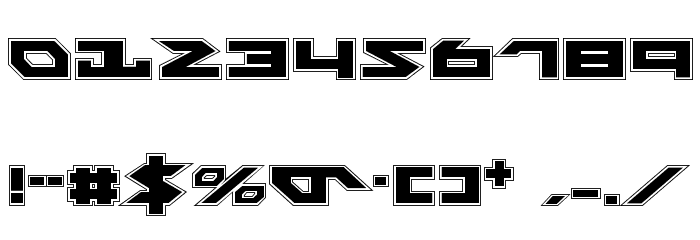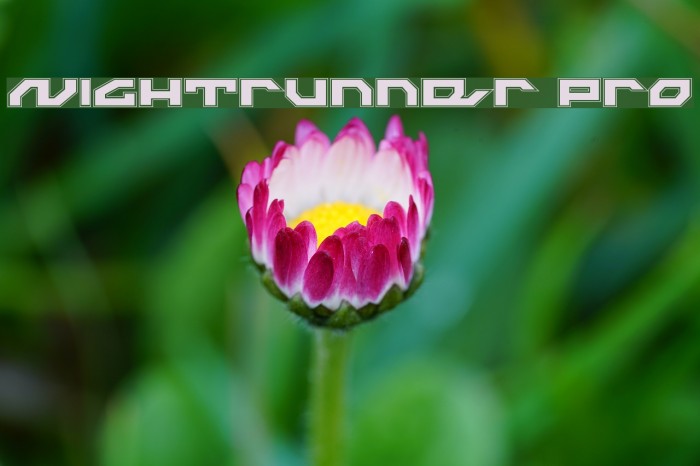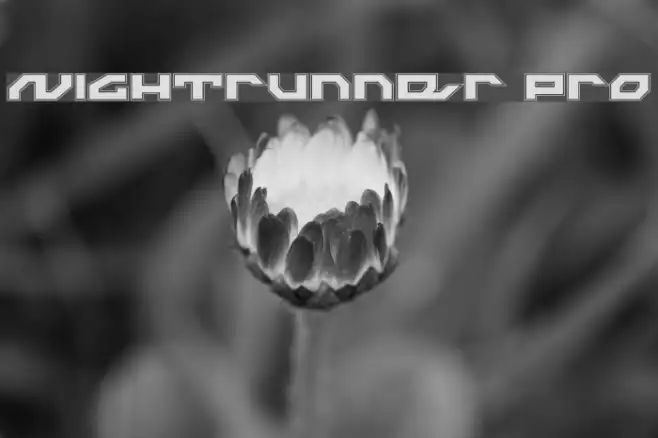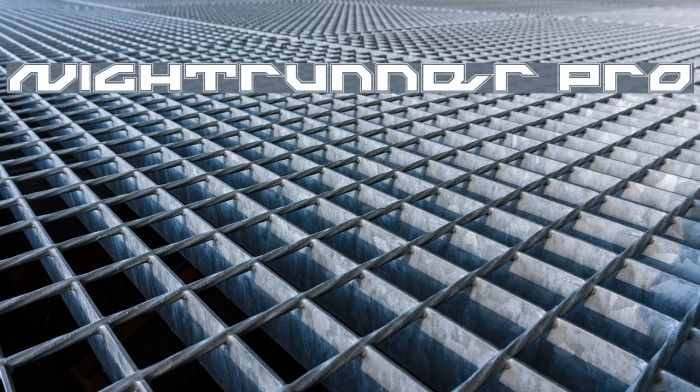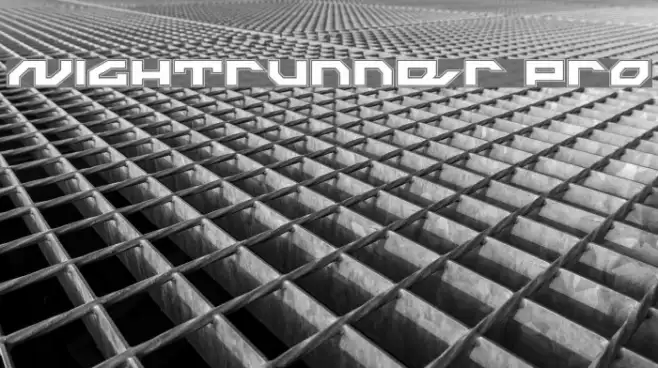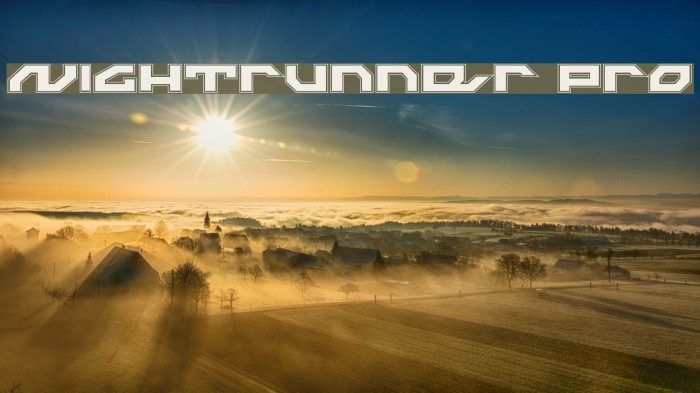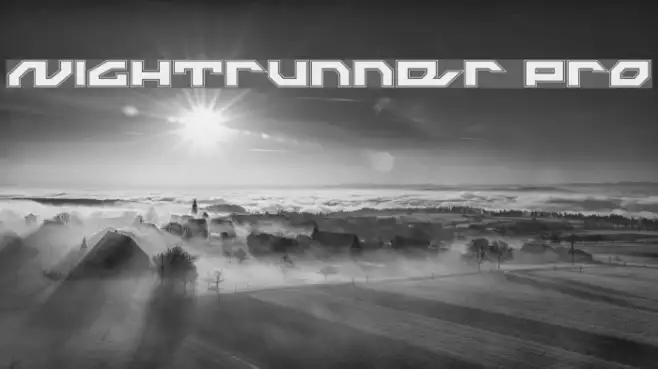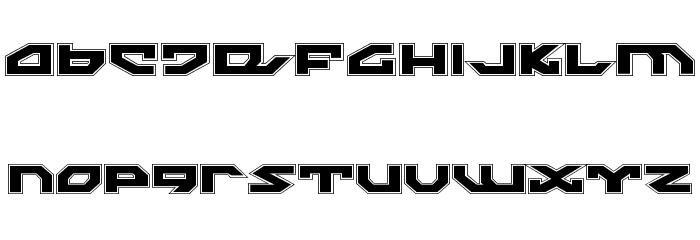
Nightrunner Pro Font
Nightrunner Pro Description
This font features a futuristic and angular design, characterized by sharp edges and geometric shapes. The uppercase and lowercase letters maintain a consistent style, with bold lines and a dynamic, forward-leaning posture. The numerals and special characters are designed to match the overall aesthetic, providing a cohesive look. The font's unique style makes it stand out, with a strong emphasis on symmetry and balance. Its bold appearance is suitable for projects that require a modern and edgy look.
| Overall Style | Futuristic |
| Proposed Projects | Ideal for sci-fi themed designs, video game titles, movie posters, and technology branding. |